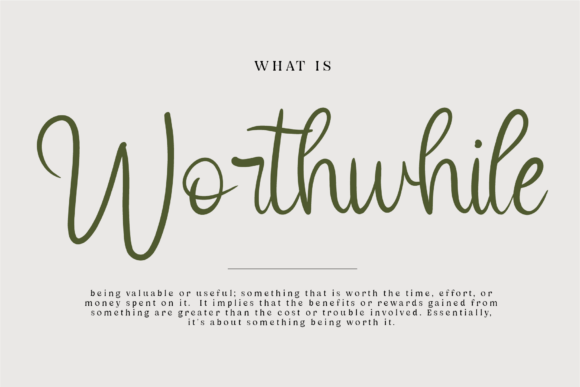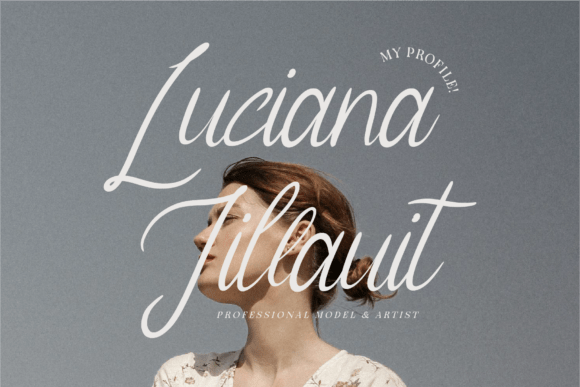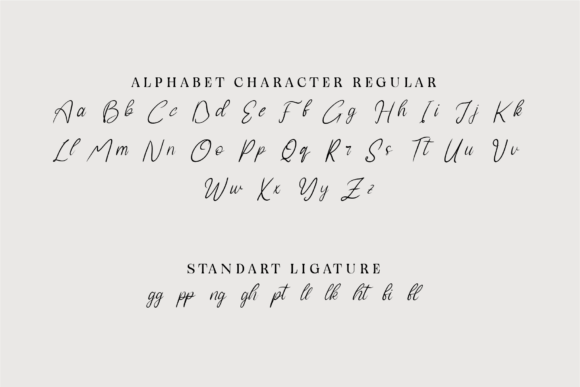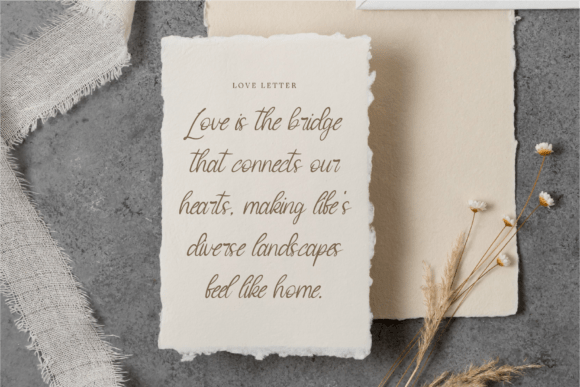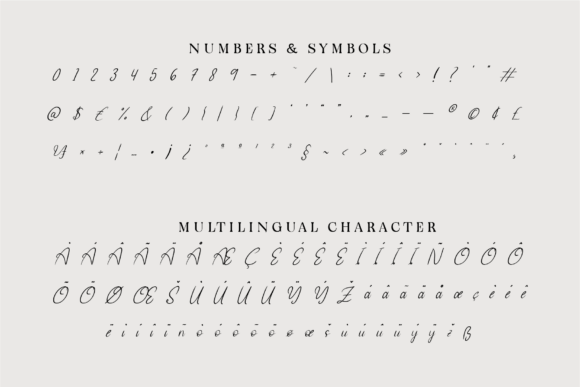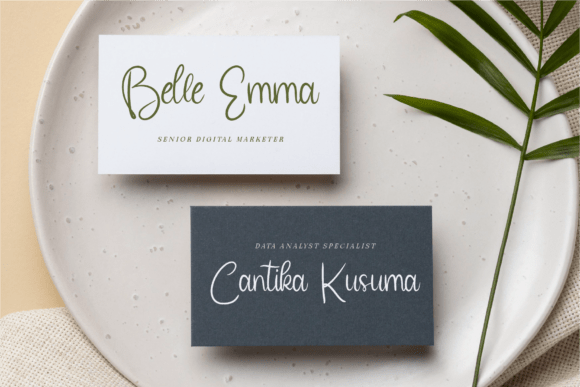
Indulge in the Timeless Beauty of Ilarique Cursivea Font
Have you ever stumbled upon a design that makes you stop and appreciate the beauty of typography? Perhaps it was a beautifully crafted wedding invitation, a high-end fashion label, or a luxurious product package that caught your eye. For designers, this moment is a reminder of the power of typography in creating an emotional connection with the audience. It’s a moment that inspires us to push the boundaries of creativity and explore the world of luxury script fonts.
Enter Ilarique Cursivea Font, a sophisticated luxury script font that embodies the essence of modern refinement. With its delicate curves, fluid strokes, and exquisite letterforms, this typeface is designed to bring a touch of high-end sophistication to your creative projects. Whether you’re a designer, artist, or entrepreneur, Ilarique Cursivea Font is a valuable addition to your toolkit, offering a unique blend of elegance, style, and readability.
Ilarique Cursivea Font Key Features
- Font Family: Ilarique Cursivea
- Unique Characteristics: Elegant, cursive script with a touch of sophistication, ideal for formal and creative applications
Ilarique Cursivea Font Review
I recently had the chance to work with the Ilarique Cursivea Font, and overall, I’m impressed with its unique charm. Here’s what I think:
- Uniqueness: Ilarique Cursivea stands out from other cursive fonts with its bold and playful feel.
- Legibility: Despite its cursive design, the font is surprisingly easy to read, even at smaller sizes.
- Style versatility: The font works well in various contexts, from invitations to signage.
- Limited character set: Ilarique Cursivea is not a full-featured font, lacking some special characters and punctuation marks.
- Font size limitations: While legible at smaller sizes, the font can become overwhelming at larger sizes.
Overall, I’d say Ilarique Cursivea is a solid choice for designers looking for a unique, playful cursive font. Its limitations are relatively minor, and its style versatility makes it a great addition to any design library. However, be aware of its potential for overwhelming text at larger sizes and its limited character set.
Ilarique Cursivea Font: A Practical Application Guide
For a professional look, pair the font with a clean and simple background. Experiment with different colors and effects to create a unique visual identity for your design.
Ilarique Cursivea is well-suited for creating custom logos, typography-based art, and other creative projects.
Ilarique Cursivea is particularly effective for creating presentations, reports, and other business documents that require a touch of elegance and sophistication.
Some tips for getting the most out of Ilarique Cursivea Font include:
- Pairing the font with a clean and simple background to create a professional look
- Experimenting with different font sizes, colors, and effects to create a unique visual style
- Using the font for creative projects, such as custom logos and typography-based art
Alternatives to Ilarique Cursivea Font
Oswald Cursive Font
Oswald Cursive is a modern, elegant font that works well for titles and headings. It is a great choice for designers who want to create a sophisticated and luxurious look. Oswald Cursive has a more geometric feel compared to Ilarique Cursivea, which makes it suitable for contemporary designs. When to use: titles, headings, luxury brands.
Great Vibes is a beautiful, cursive script font that is perfect for adding a touch of elegance to any design. It has a more relaxed and casual feel compared to Ilarique Cursivea, making it suitable for creative and artistic projects. Great Vibes is ideal for designers who want to create a friendly and approachable atmosphere. When to use: creative projects, artistic designs, friendly brands.
Can I customize the Ilarique Cursivea Font?